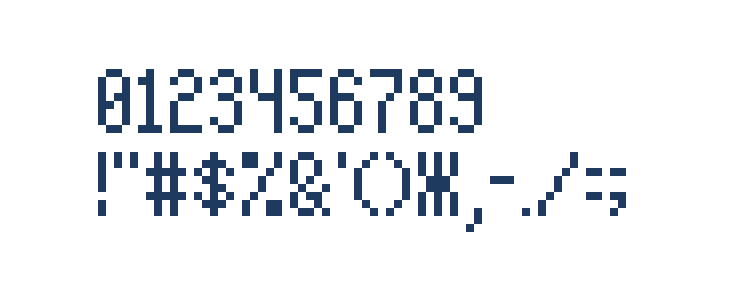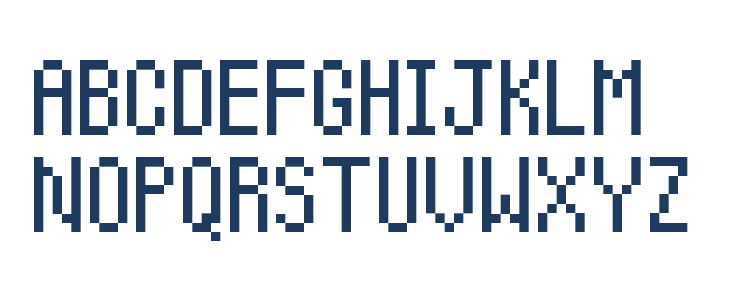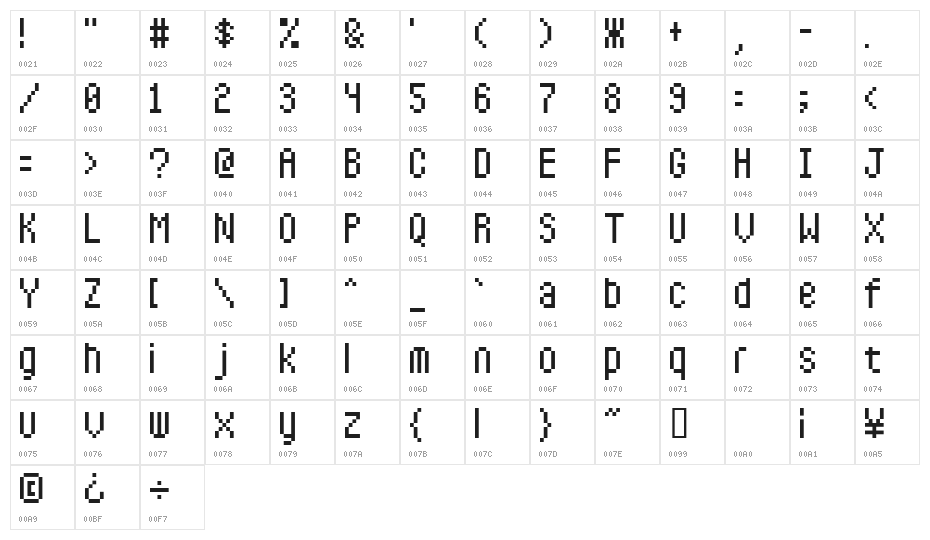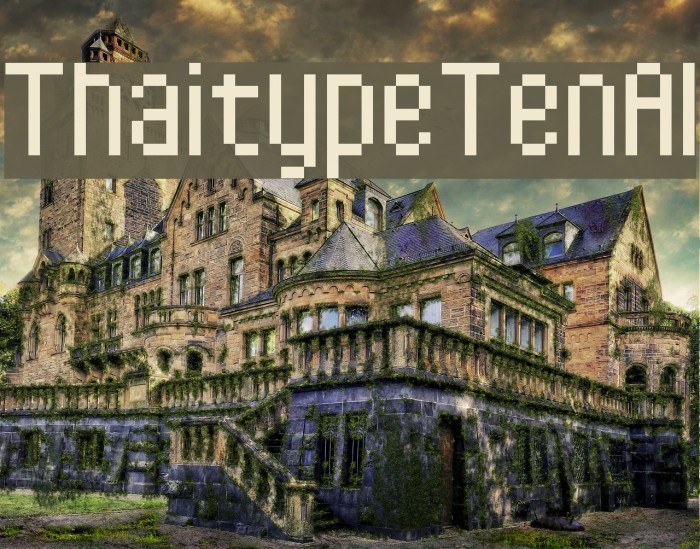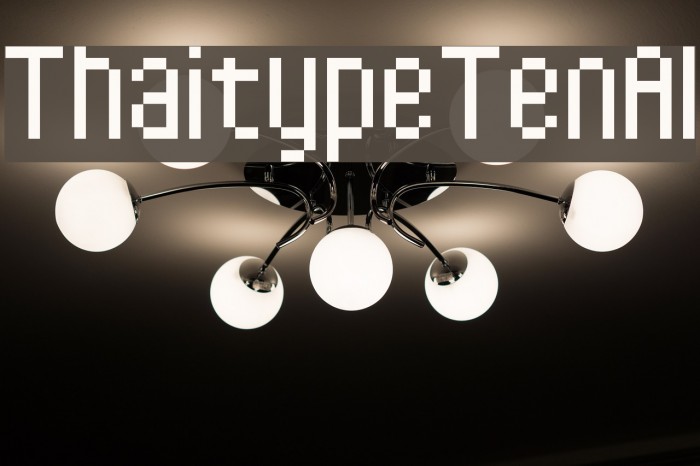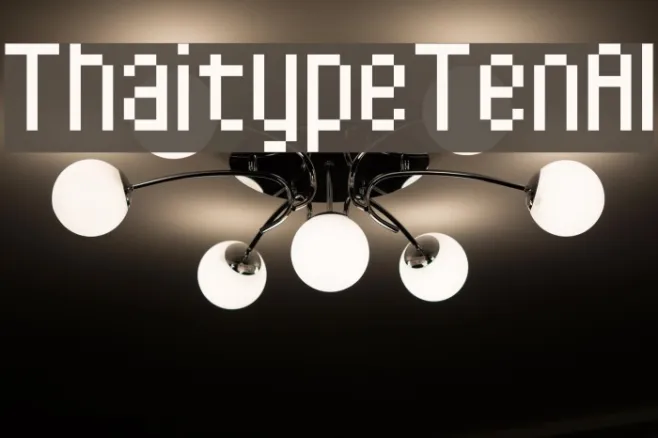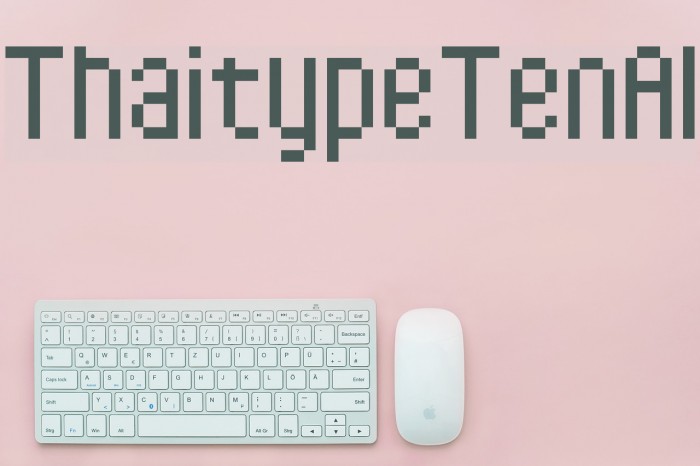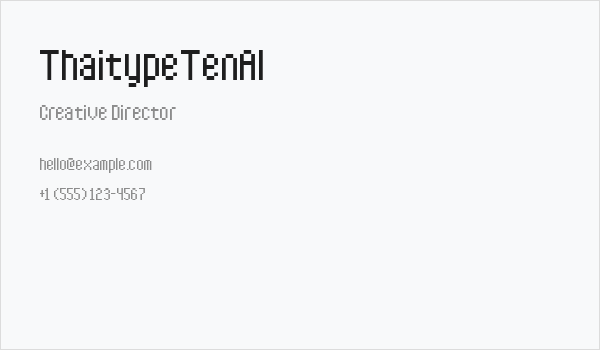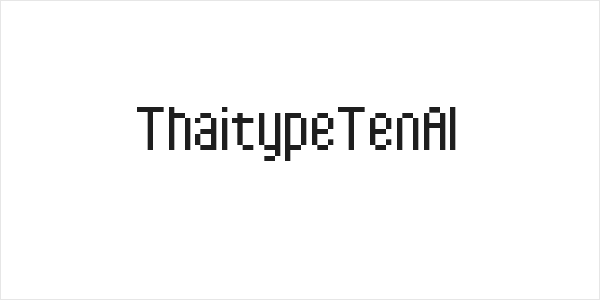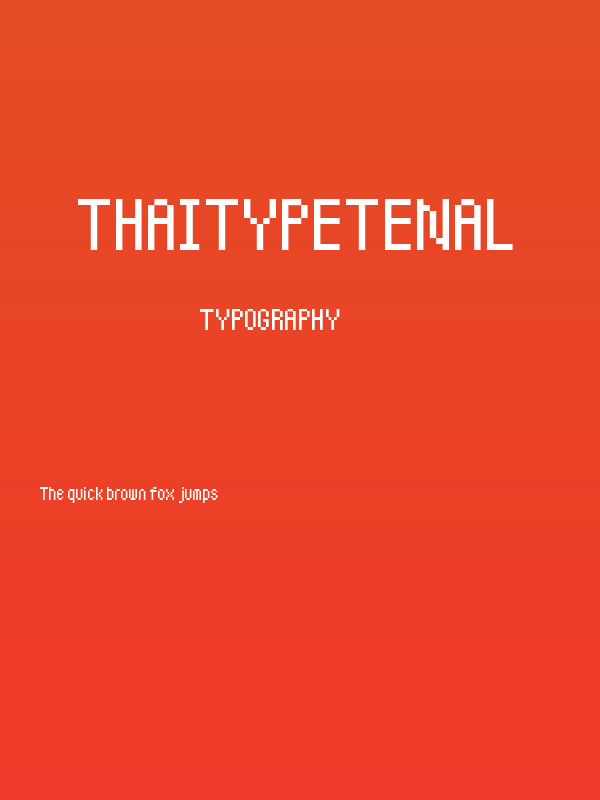
ThaitypeTenAl Font
ThaitypeTenAl Description
This font features a pixelated, blocky design reminiscent of early digital displays and retro video games. Each character is constructed with a uniform grid-like structure, giving it a distinctly digital and geometric appearance. The uppercase and lowercase letters maintain a consistent height and width, contributing to a monospaced feel. The numbers and special characters follow the same pixelated style, ensuring uniformity across all glyphs. The font's simplicity and clarity make it highly legible, even at smaller sizes. Its nostalgic aesthetic is ideal for projects that aim to evoke a sense of classic computing or retro gaming.
| Overall Style | Retro, Digital |
| Use Case | Headlines, Logos, Digital displays |
| Proposed Projects | Ideal for retro video games, digital art projects, tech-themed designs, and nostalgic branding. |